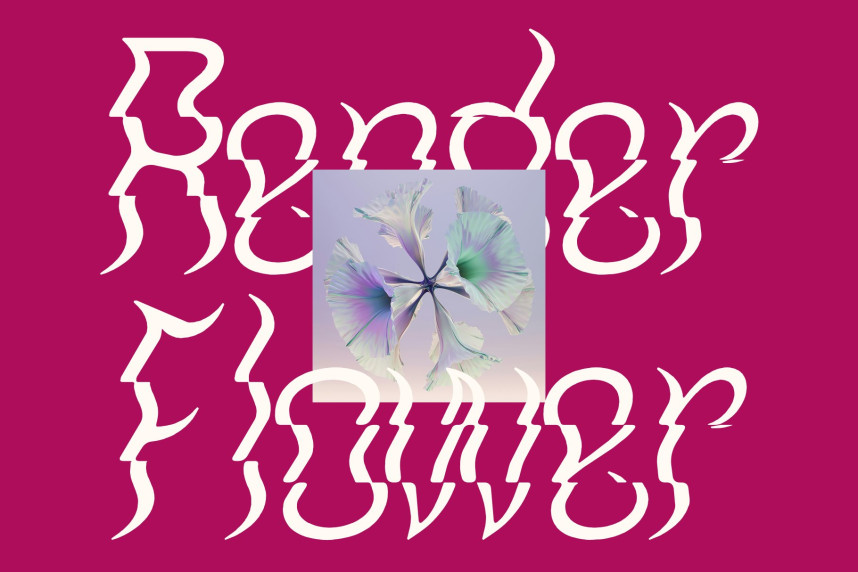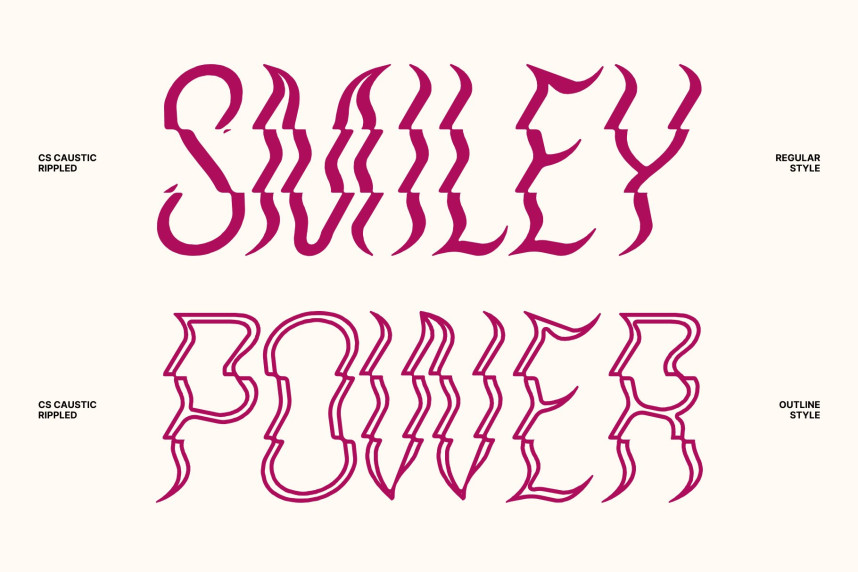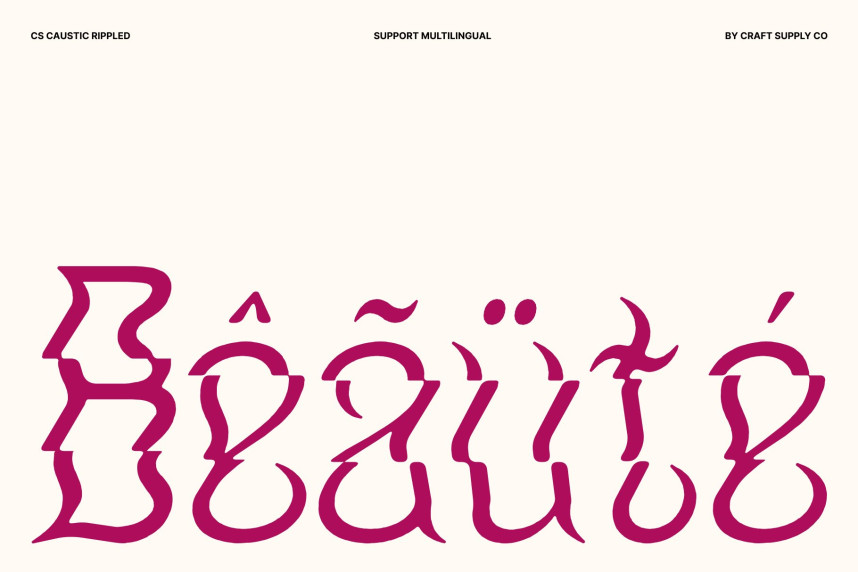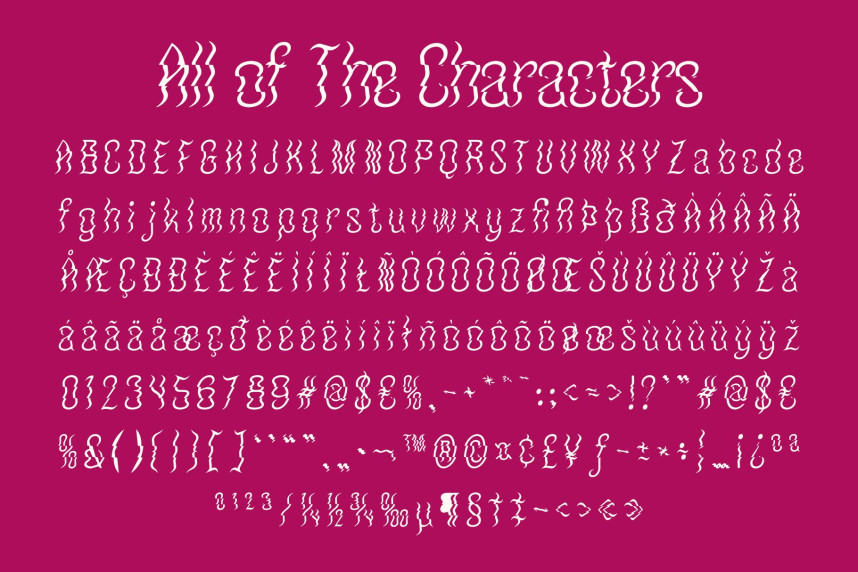
CS Caustic Rippled Font
CS Caustic Rippled Font – Psychedelic Font with Funky Liquid Expression
Modern Display Font with Psychedelic Flair
This is a modern display font that combines psychedelic aesthetics with bold contemporary expression. The font captures the free-spirited energy of psychedelic art while presenting it through a modern typographic lens, resulting in a display style that feels expressive, artistic, and impossible to ignore.